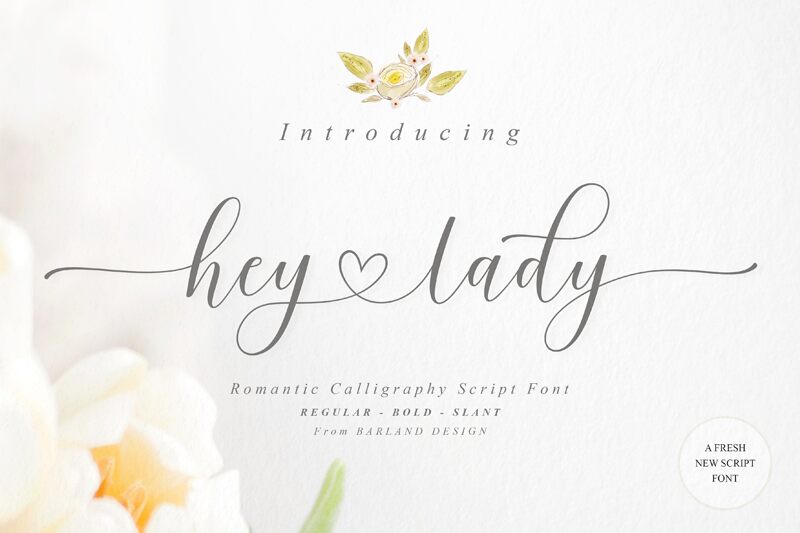
Hey Lady Script, designed by Barland, is a graceful calligraphy font exuding elegance and charm. With its light weight, this font adds a touch of sophistication to any project. Perfect for wedding invitations, feminine branding, or romantic quotes, Hey Lady Script brings a whimsical yet refined aesthetic to the table. Its fluid strokes and intricate details create a sense of effortless beauty. Whether you're designing a luxurious logo or crafting heartfelt greetings cards, Hey Lady Script is the ideal choice for projects that demand an air of grace and femininity.